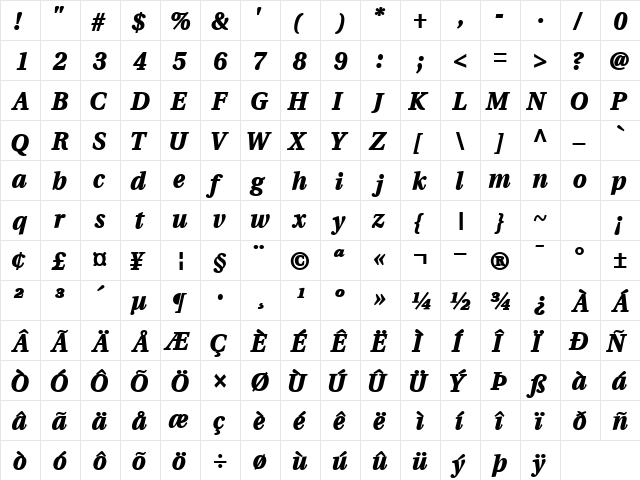
VeracityBlackSSK Bold Italic Font Preview
VeracityBlackSSK Bold Italic
Design Context for VeracityBlackSSK Typeface
VeracityBlackSSK is a composed and adaptable typeface that performs quietly and consistently across a wide range of design contexts. Its italic angle brings a sense of urgency and motion to the letterforms. Its bold stroke weight gives it real presence on the page.
Pro Tip: Use VeracityBlackSSK for emphasis, pull quotes, and subheadings where its slanted energy can add rhythm to the layout.